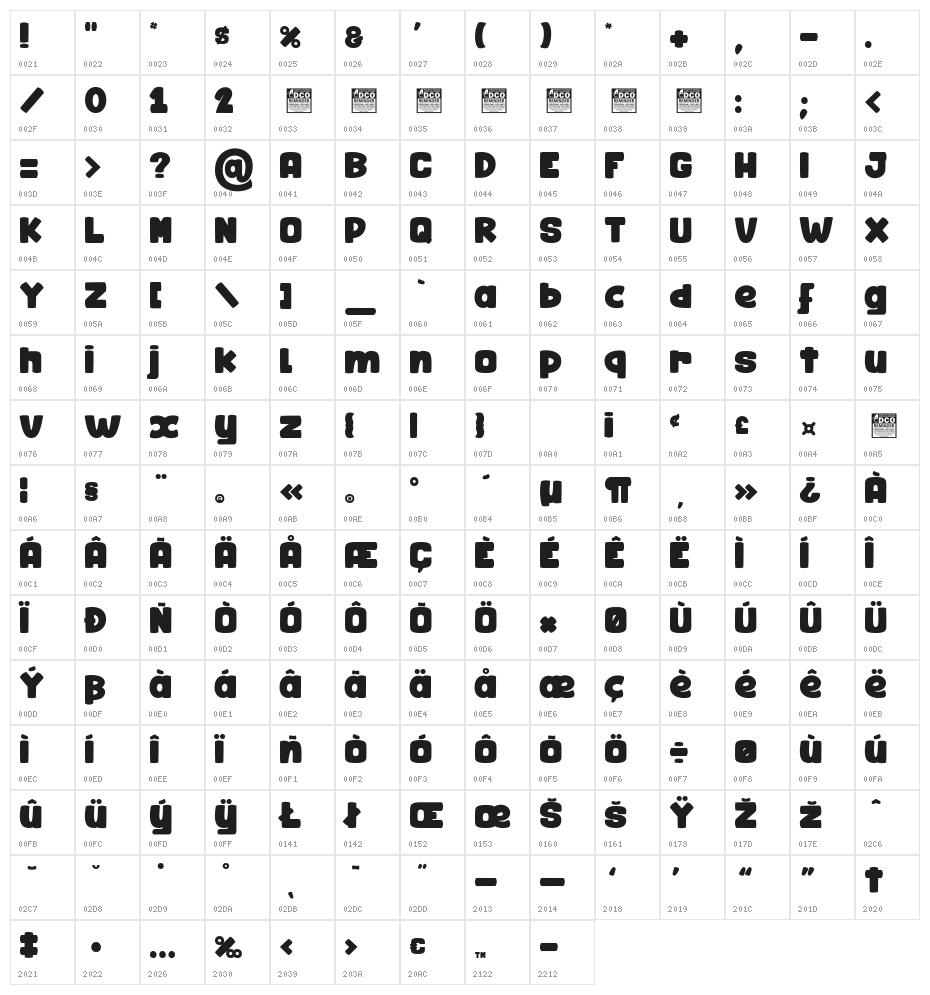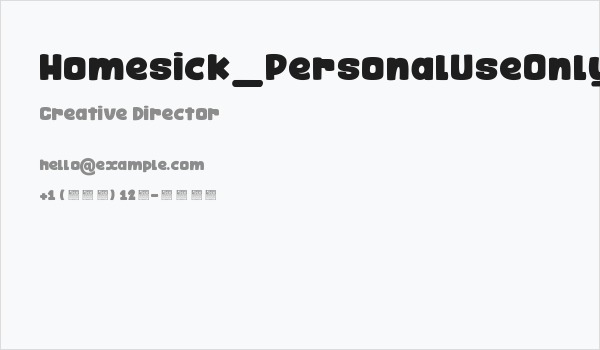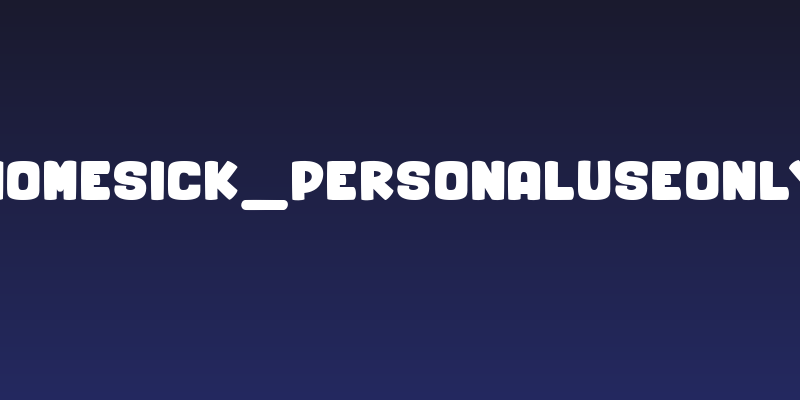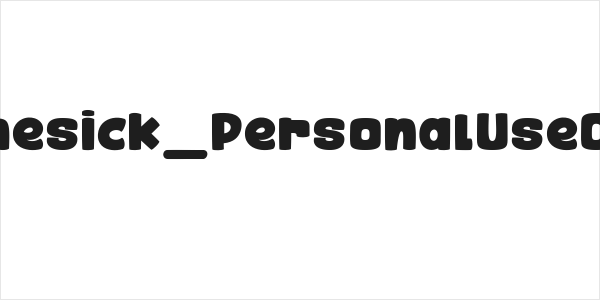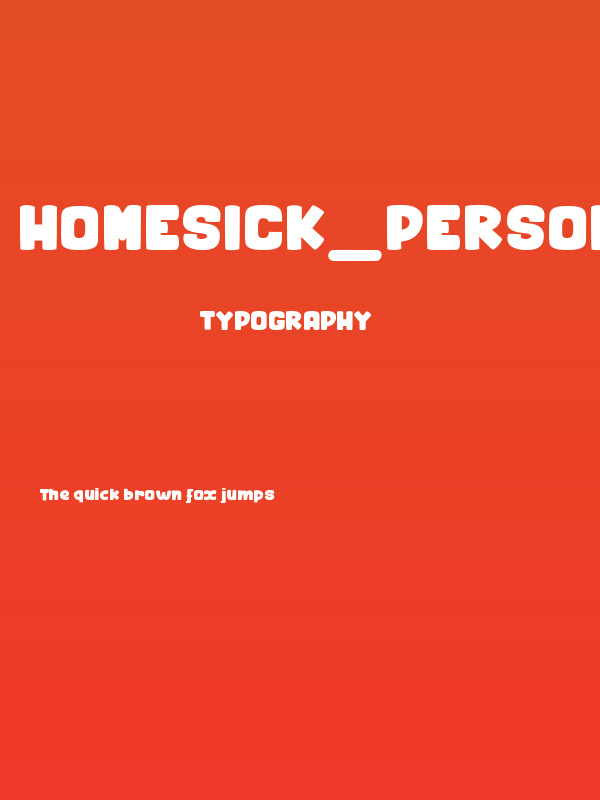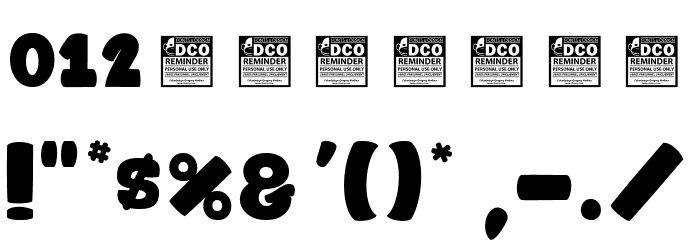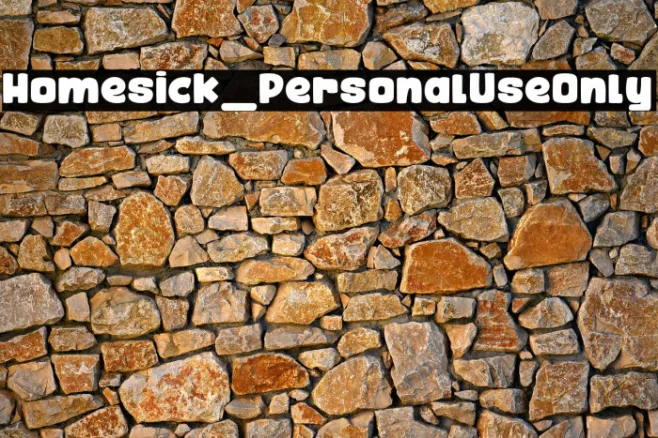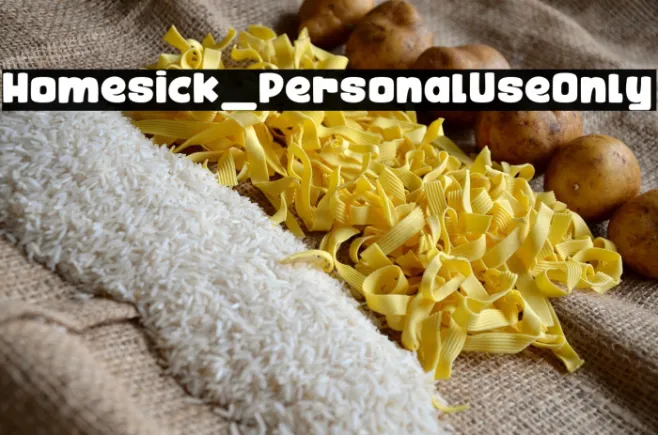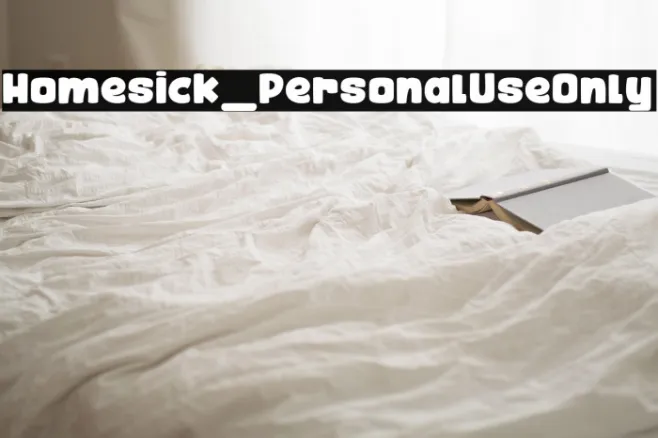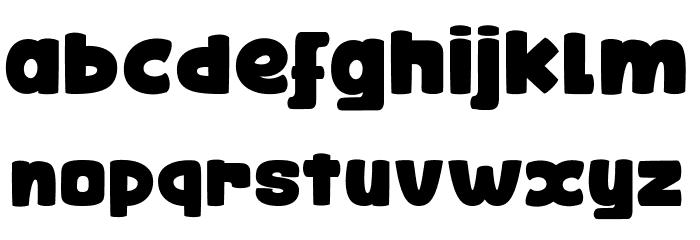
Homesick_PersonalUseOnly Font
Homesick_PersonalUseOnly Description
This font features a bold and playful design with rounded edges and a thick, uniform stroke. The characters are wide and have a soft, friendly appearance, making them highly legible and suitable for attention-grabbing designs. The uppercase and lowercase letters maintain a consistent style, with a slightly whimsical touch that adds character. The numbers and special characters follow the same design principles, ensuring a cohesive look across all text elements. This font exudes a sense of fun and creativity, making it ideal for projects that require a lively and engaging visual impact.
| Overall Style | Playful, Fun |
| Proposed Projects | Ideal for children's books, playful branding, posters, and creative advertising. |